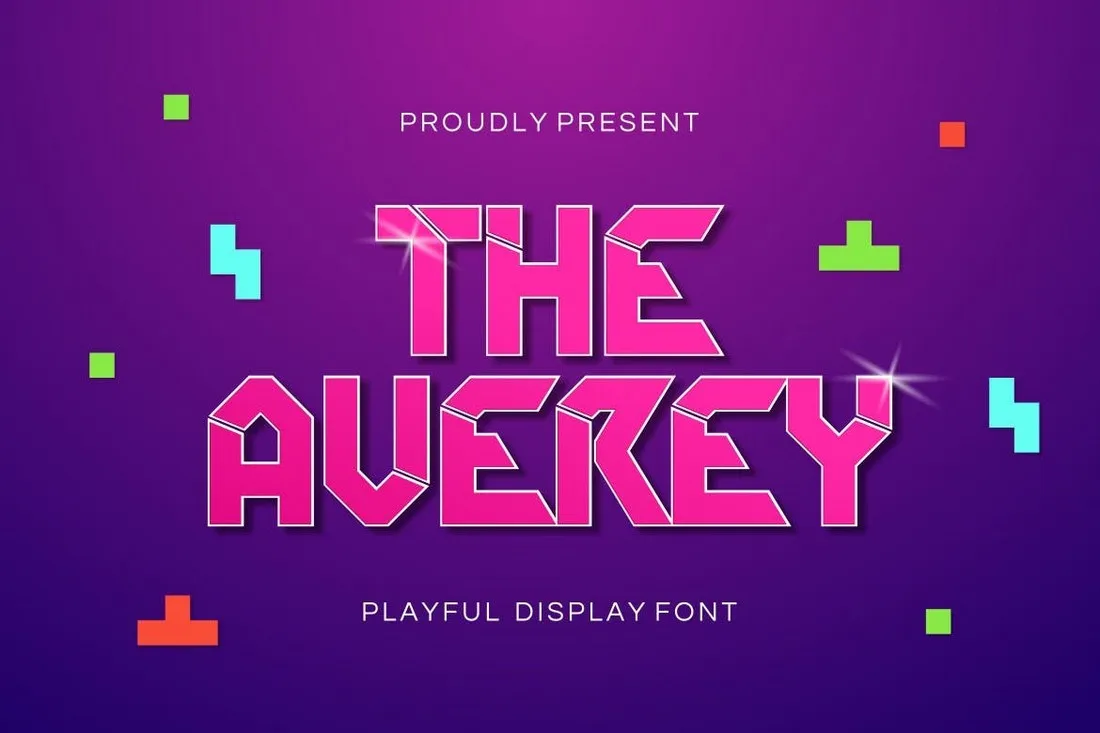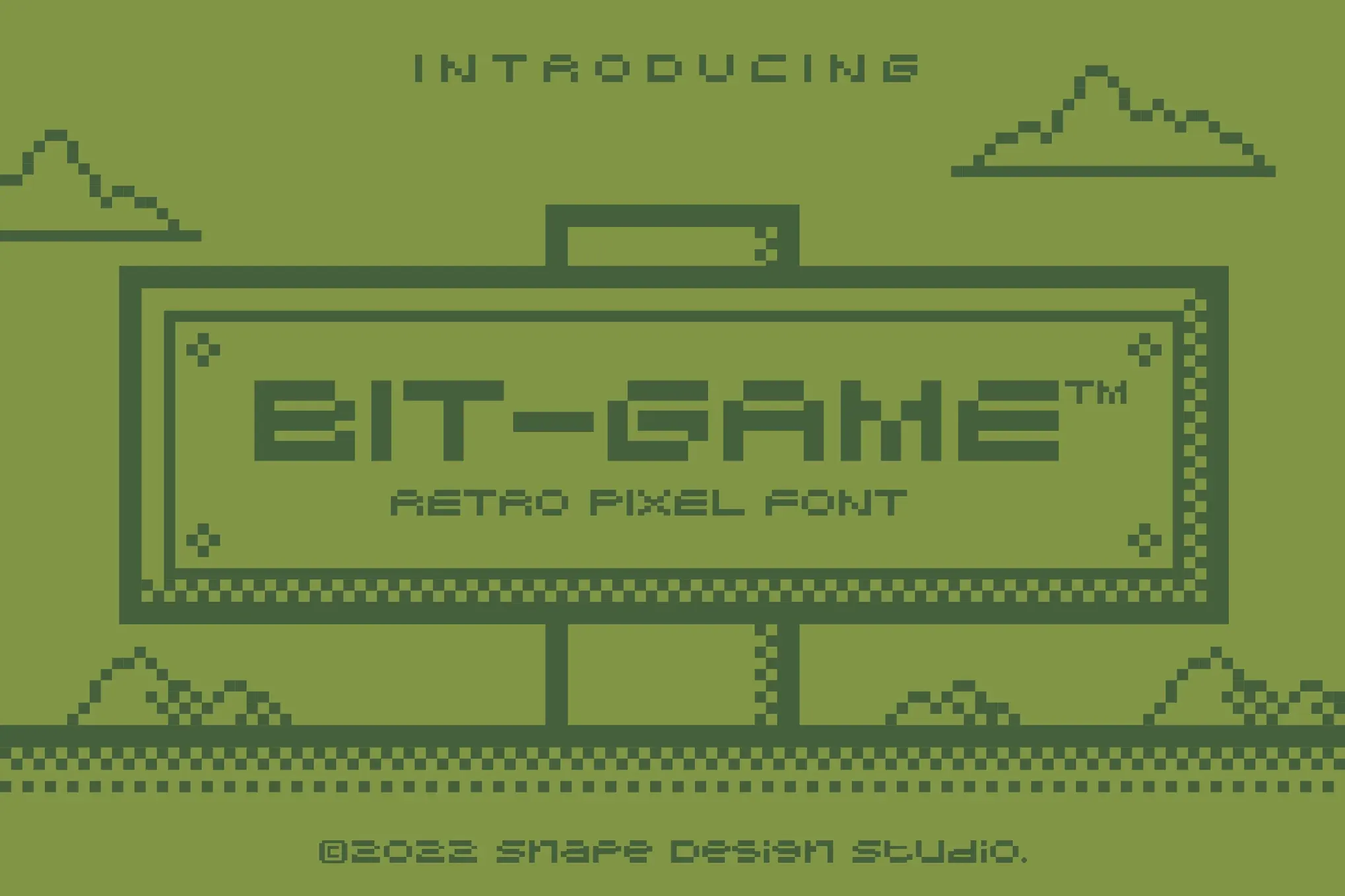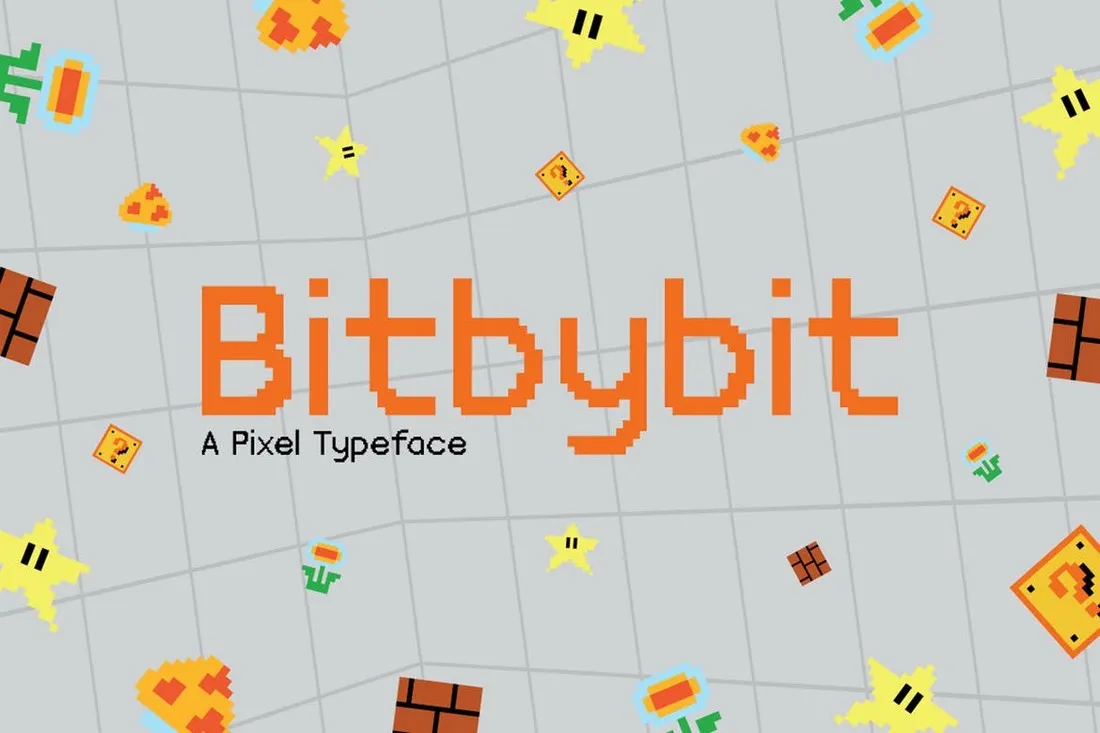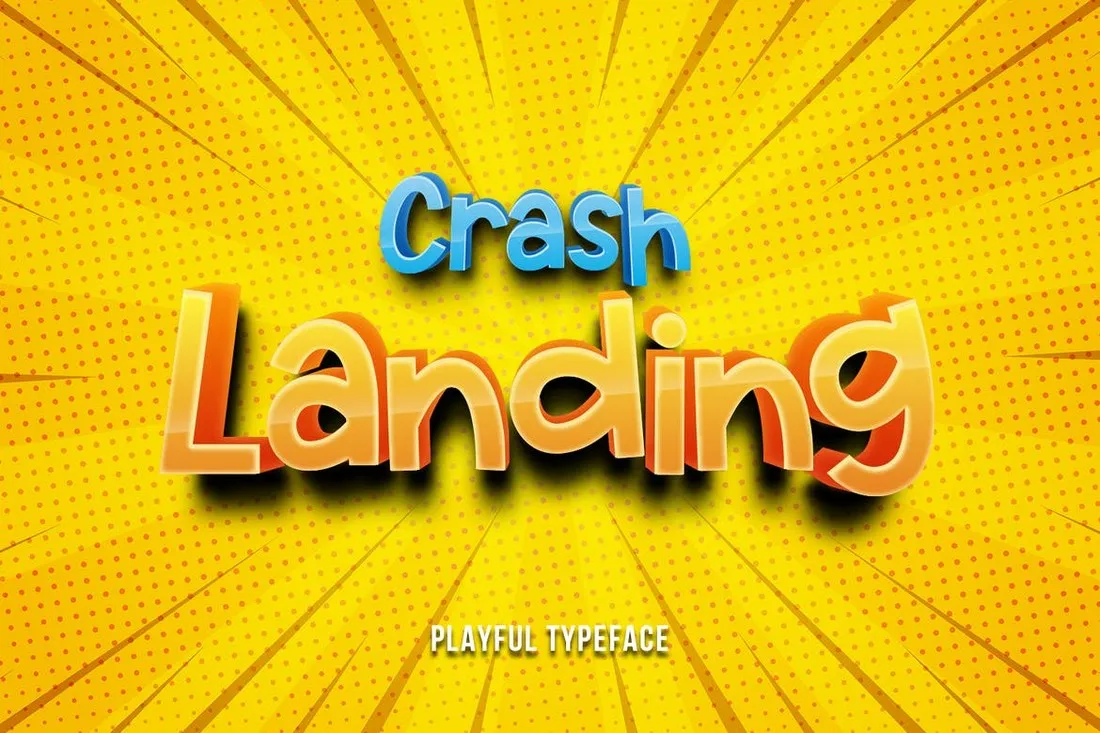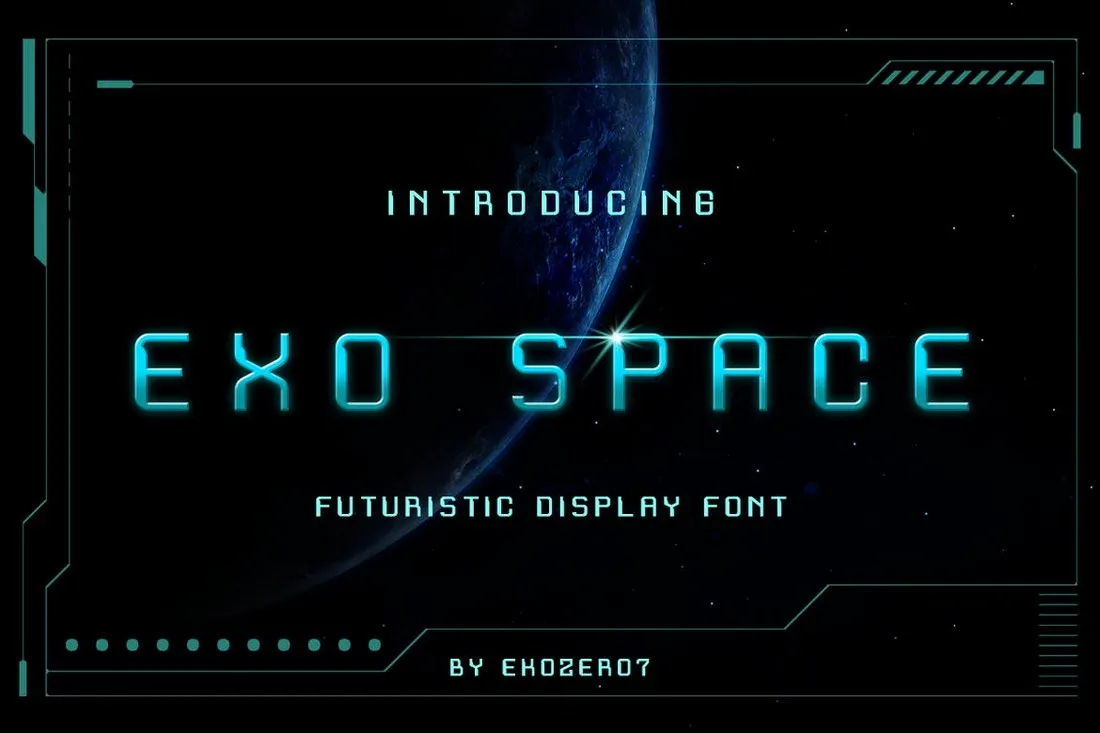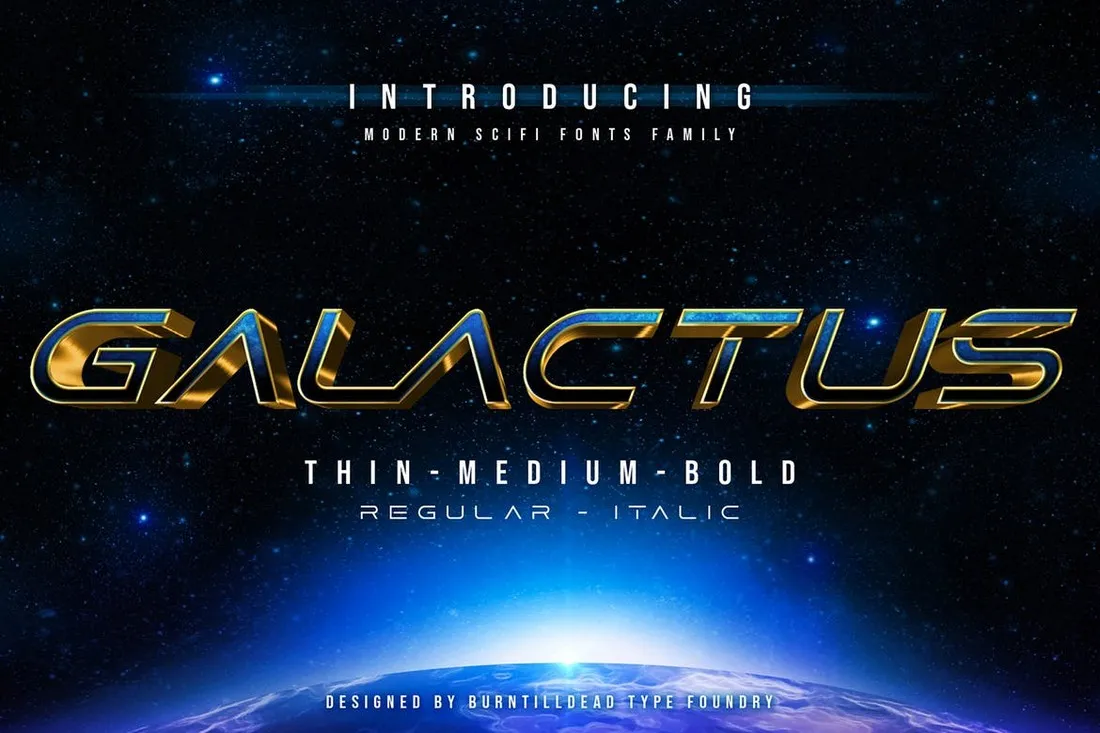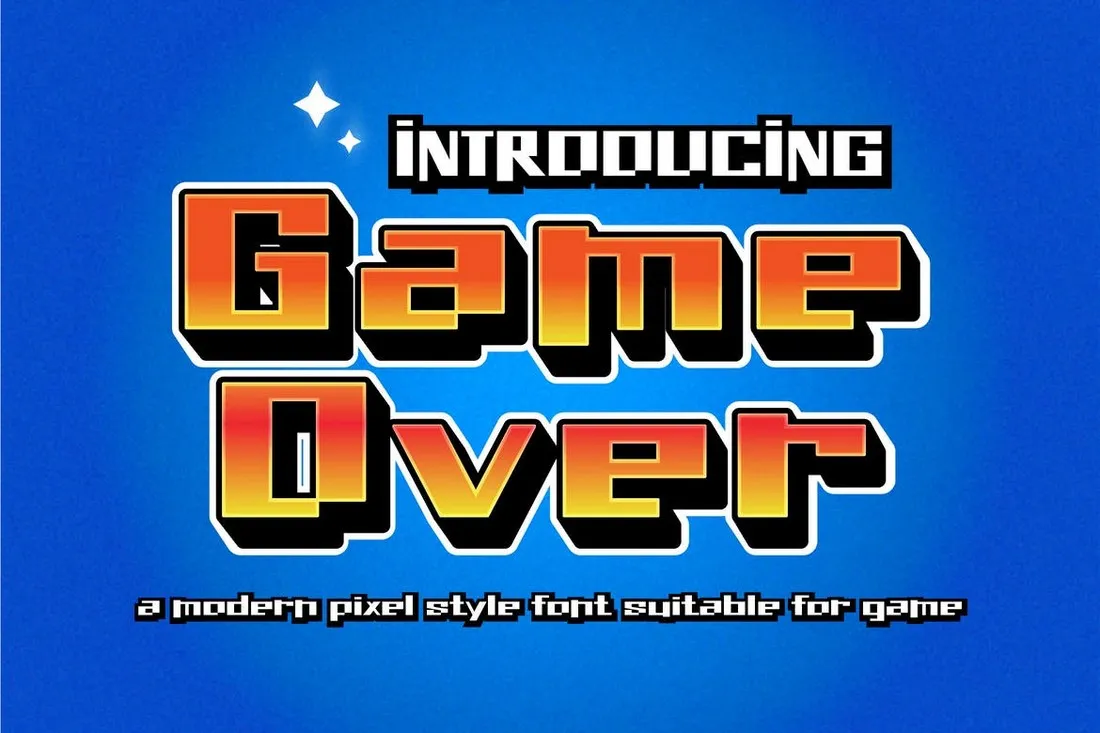
The gaming world is a bigger industry than ever, surpassing Hollywood in revenue and influence. Eye-catching designs play a huge role in the success of video games, from website landing pages to social media promotions and app store previews. These visuals grab attention and entice players to download and try new games.
If you’re a designer working on game promotion, choosing the right font is crucial. We’ve curated a list of cool gaming fonts to help you create stunning visuals that resonate with gamers. These fonts come in various styles, perfect for designing promotional materials or crafting engaging titles for YouTube and Twitch. Let’s dive in!
Game Paused – Modern Gaming Font
The Game Paused font family offers six unique styles that bring back the nostalgia of modern pixel games. With Regular, Slant, Outline, Extrude, Outline Slant, and Extrude Slant styles, this collection adds a rich retro feel to any pixel game project. It’s a versatile choice for various gaming-related designs.
Techno Tribe – Retro Game Font
Techno Tribe is a striking display font available in 3 unique styles. Inspired by futuristic aesthetics, tribal designs, and retro gaming, it’s suitable for various genres. Its bold style is perfect for branding, logos, packaging, games, or event posters. Available in multiple formats, it includes standard, ligature, and alternate glyphs.
Game Quotes – Bold Serif Gaming Pixelate Font
This retro gaming-inspired font blends vintage charm with modern bold serif design. Its pixelated style evokes nostalgia, while the bold serif details add a contemporary touch. With uppercase, lowercase, numbers, ligatures, and alternate letters, it’s a versatile font for video game titles, posters, branding, and merchandise.
Mexicalo – Fantasy Game Font
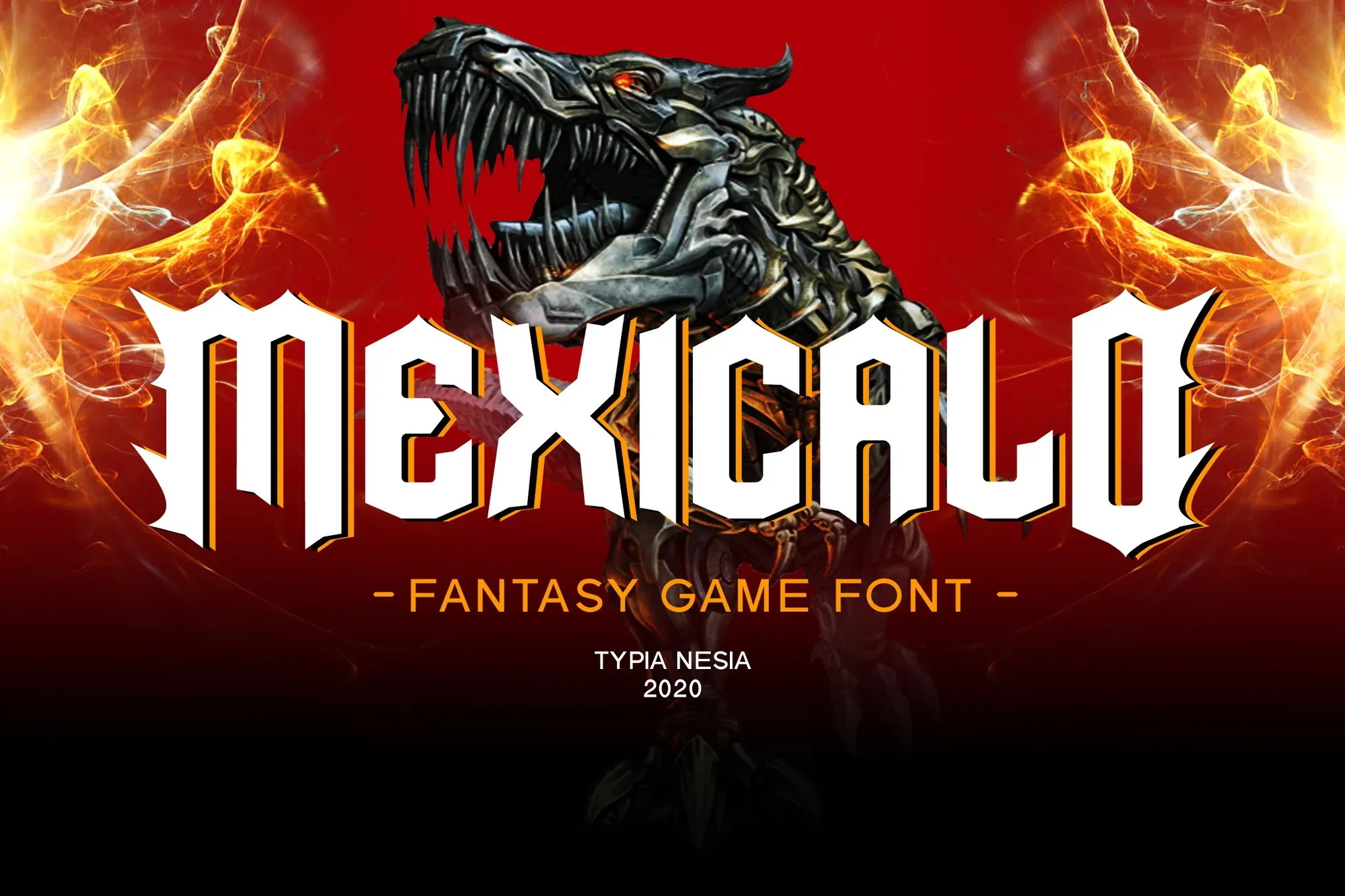
Mexicalo is a decorative gaming font designed for fantasy-themed projects. Its unique craftsmanship suits gaming designs, logo branding, stationery design, and modern advertising. Whether you’re crafting a fantasy novel, designing a blog, or planning a special event, Mexicalo is a reliable choice.
Cross Gaming – Creative Video Game Font
Bit Game – Retro Pixel Font
Long Games – Modern Gaming Font
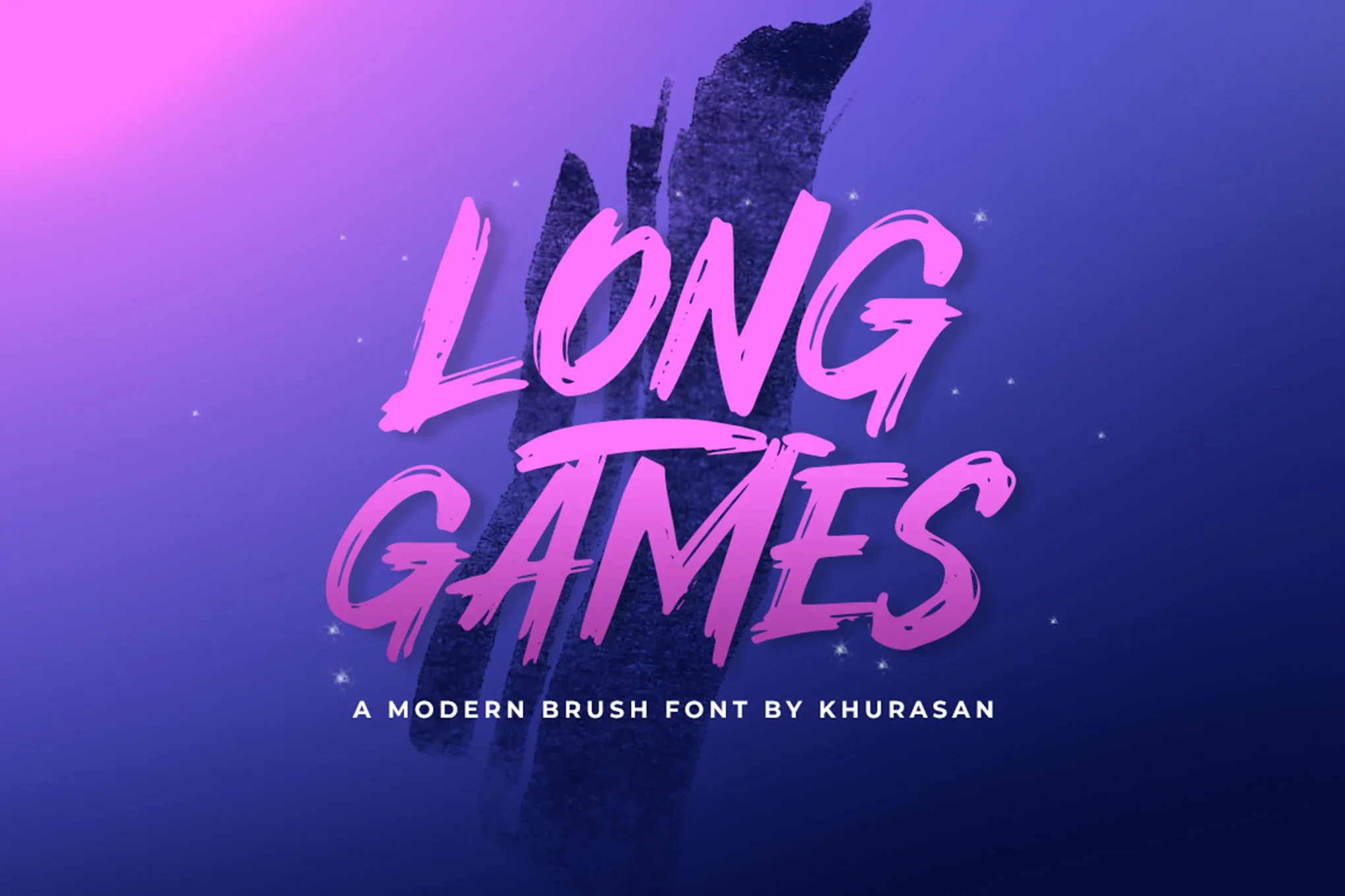
Long Games is an elegant, fresh, and ultra-modern brush font. This set features multilingual support and includes files in both .ttf and .otf formats. Perfect for gaming title screens and video thumbnails.
Space Game – Futuristic Gaming Font
Space Game is a dynamic gaming font with a fun and futuristic vibe. It features lowercase and uppercase characters, numerals, standard OpenType punctuations, and accents, allowing it to support multiple languages. The package also comes with ligatures and an alternative style stylistic set.
Giselle – Pixel Art Gaming Font
Giselle is a pixel art gaming font for various creative projects. It can be an excellent choice for logos, gaming, branding, t-shirts, magazines, websites, and posters. It comes with uppercase and lowercase letters, numerals, punctuation, multi-lingual support, and Opentype features.
Rocabe – Retro Gaming Font
Rocabe recalls the charm of classic arcade games. This pixel-style typeface elevates the aesthetic of old-school games to meet contemporary design standards. Besides providing authenticity to vintage-themed designs, it’s adept at nurturing an indie game’s unique look. Offering OTF, TTF, WOFF, WOFF2 file fonts with all glyphs.
Retro Video Game Font
Paying homage to retro video games, this font features an old-school pixelated letter design, a throwback to the golden era of gaming. It also comes with 17 pixelated martian designs inspired by classic arcade games, great for adding a creative look to your designs and capturing the essence of vintage gaming.
Ethnique – Ethnic Gaming Font
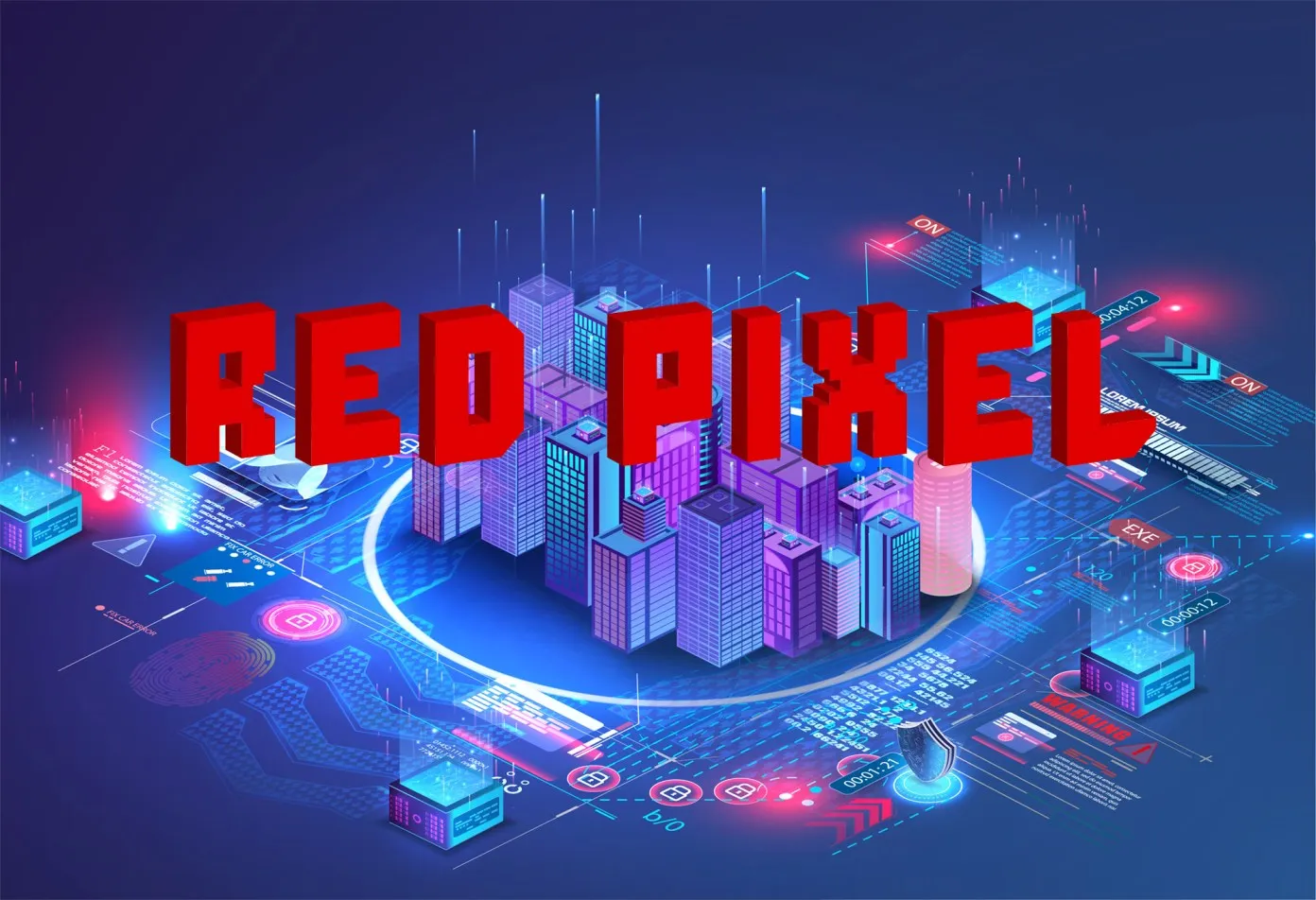
Ethnique is an ethnic typeface perfectly suited for online games that demand a tribal and ancient vibe. It comes with a full set of uppercase and lowercase letters, numbers, punctuation, and multilingual support, making it ideal for games rooted in history or mythology.
Gameria – Blocking Gaming Font
Gameria is a fun and playful font suitable for a range of online games, offering a unique and memorable look. It’s an excellent contender for those who truly value standing out from the pack. It’s simple to install and works on both PC and MAC.
Level Up Your Designs
Choosing the right font can significantly impact the visual appeal of your gaming designs. Whether you’re working on promotional materials, YouTube thumbnails, or eSports branding, this collection of cool gaming fonts offers a diverse range of styles to suit any project. Experiment with these fonts and elevate your game design to the next level. Check out other resources online to find the best gaming fonts for your project.